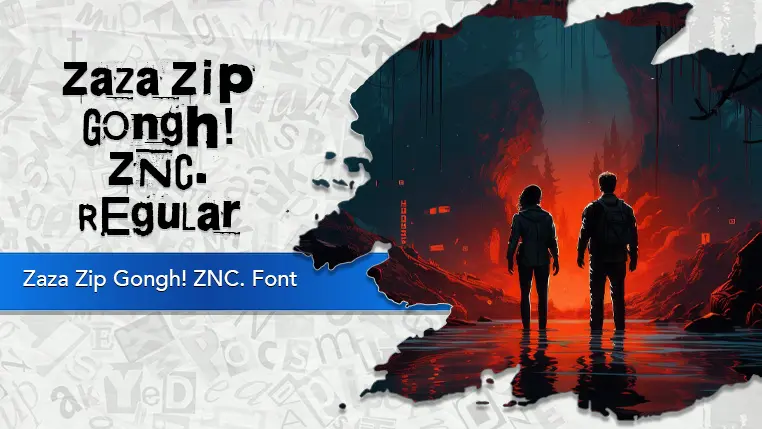
The Zaza Zip Gongh! ZNC. font family may be ideal for you if you enjoy working on an artistic design project. The lively, expressive look of this typeface, which was created by Juha Korhonen, makes it ideal for Ransom Note / Glitch / Eroded, Low-Resolution / Lo-Fi, "Ransom Note" Themed Designs, Glitch Art / Digital Distortion, Horror/Thriller Genres, Short, Impactful Statements, Creative Social Media Graphics and other light-hearted visual projects.
Regular are the one primary font styles of the Zaza Zip Gongh! ZNC. font family. You may build dynamic, visually appealing text layouts with the distinct flair that each style offers. With crisp, readable lines and a relaxed tone.